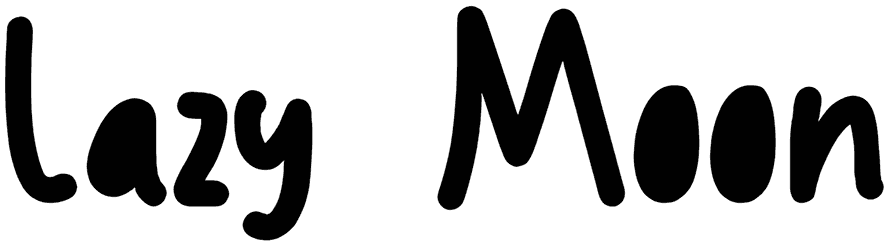
Lazy Moon Font
Lazy Moon is a doodle font with a not-so-modern look that can revive memories for viewers and make them happy easily.
The child mode of this font has made it stand out for decorative purposes and is used to share your feelings and love with friends and family members. So remember to paste it on your greeting cards, posters, and advertisements to make them look great.